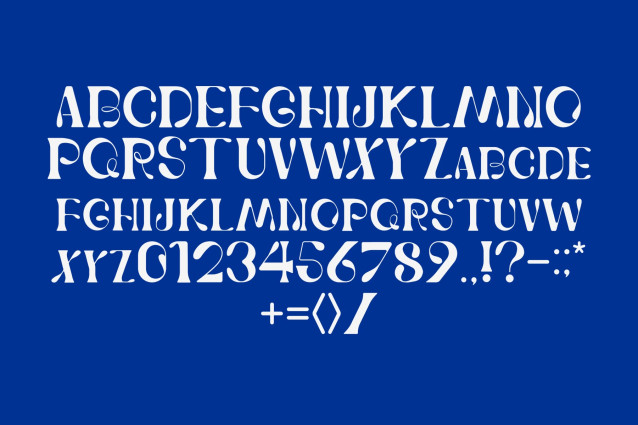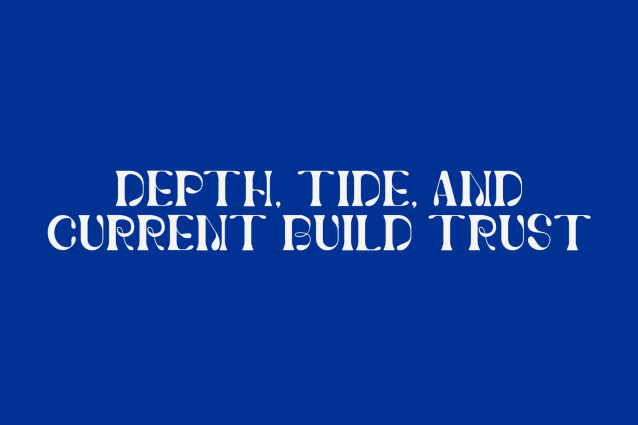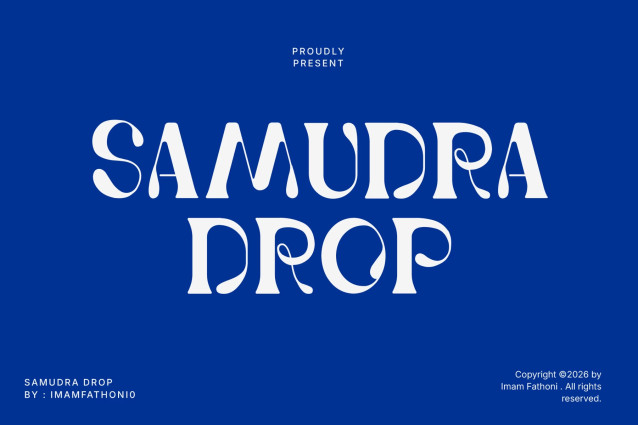
Samudra Drop Font
SAMUDRA DROP – Liquid Display Serif Font
Infuse your visual identity with fluid grace, retro psychedelic elegance, and ocean-inspired curves with SAMUDRA DROP! This unique display serif font features sweeping teardrop terminals, liquid-like stems, dynamic high-contrast strokes, and whimsical loop accents on letters like the ‘R’ and ‘P’. Its expressive, wave-like movement gives headlines a artistic, high-fashion personality that stands out instantly.